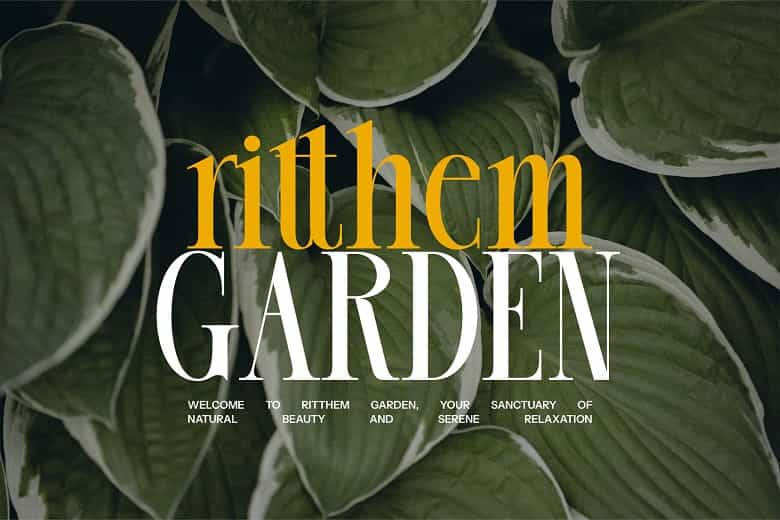
Firglen is a beautiful, elegant and sophisticated serif font that is ideal for use in any design project in order to give it a certain refinement. Because of its simple design and elegant appearance, it is suitable for headlines, logos, and invitations. The letters are large, clear and have a classic look to it which makes Firglen suitable for many different designs.